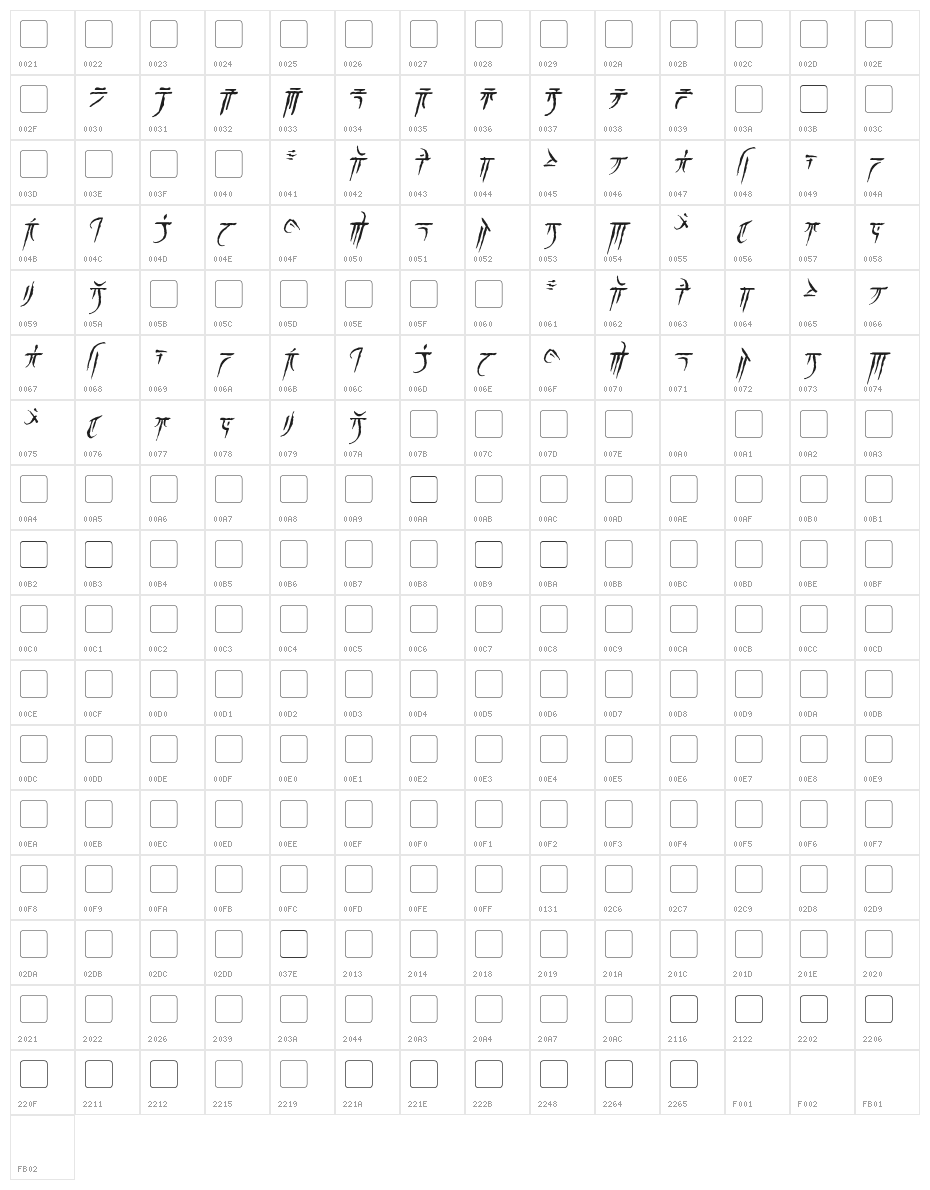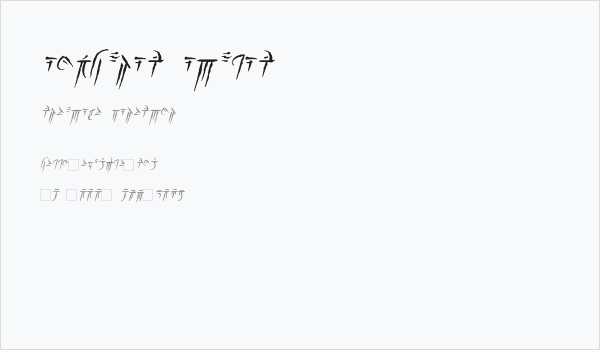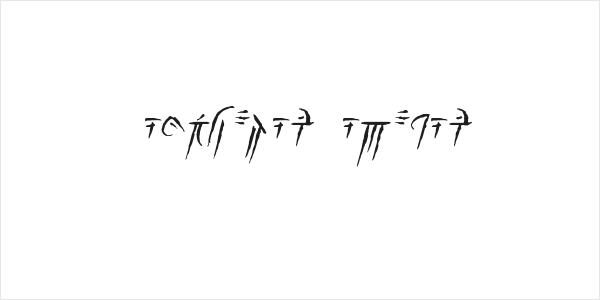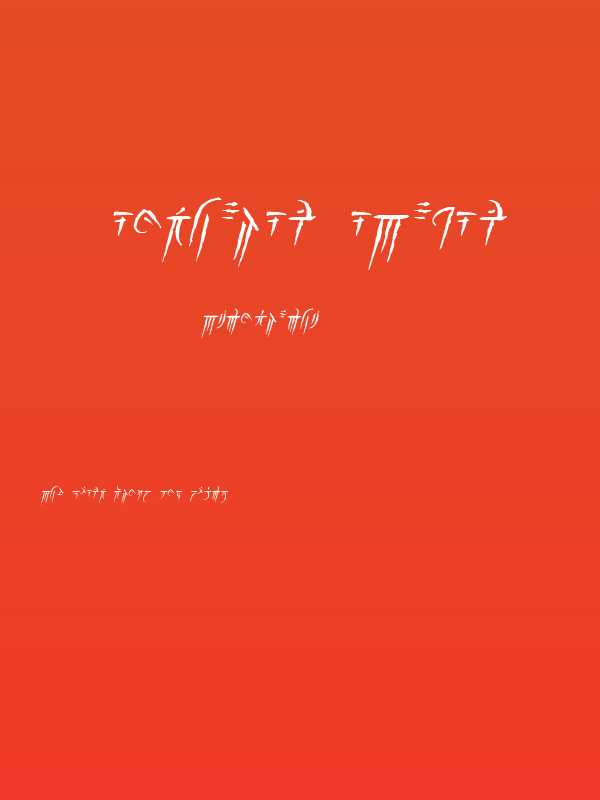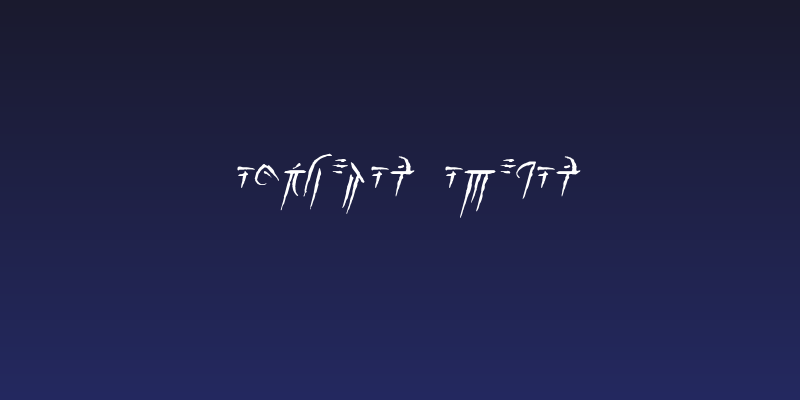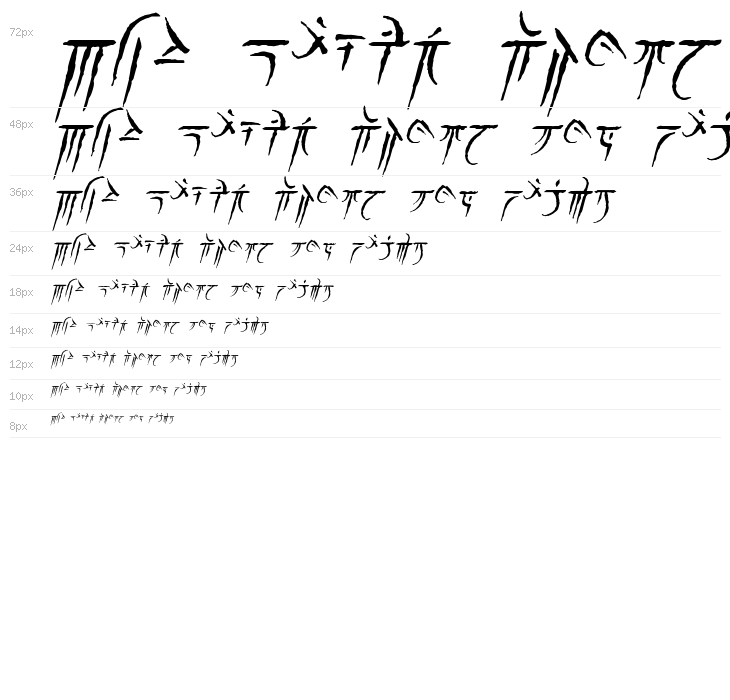
Iokharic Italic Font
Iokharic Italic Description
This font features a unique, calligraphic style with sharp, angular strokes and a distinct italic slant. The characters are reminiscent of ancient scripts, giving it a mystical and exotic appearance. The strokes vary in thickness, adding a dynamic and expressive quality to the text. The overall design is intricate, with each letterform exhibiting a sense of motion and fluidity. This font is particularly striking due to its elaborate and decorative nature, making it stand out in any design context.
| Proposed Projects | Ideal for fantasy-themed projects, game design, book covers, or any creative work requiring an exotic and mystical touch. |